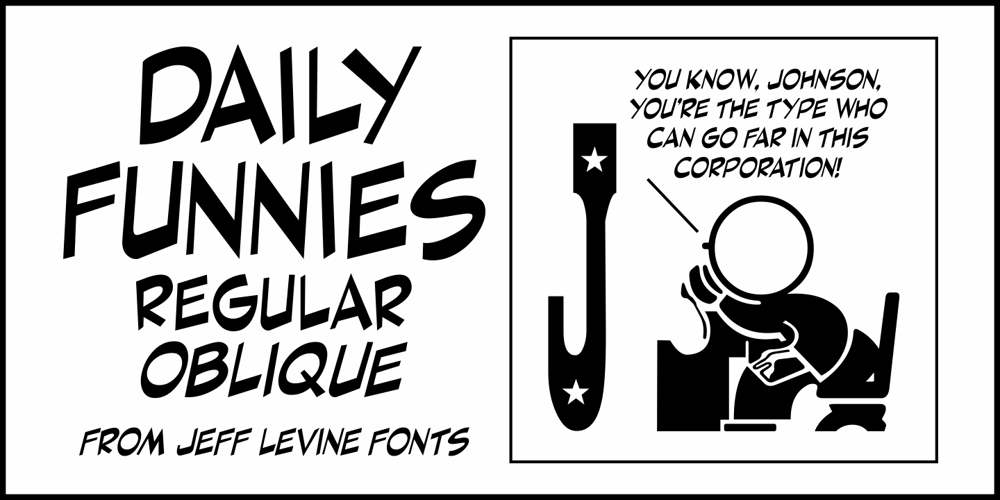
Daily Funnies JNL Font Family was designed by Jeff Levine and published by Jeff Levine. Daily Funnies JNL contains 2 styles and family package options. It is said that imitation is the sincerest form of flattery.Daily Funnies JNL (available in both regular and oblique versions) was inspired by and somewhat modeled after the hand lettering of Walt Kelly, the creator of the classic “Pogo” comic strip.